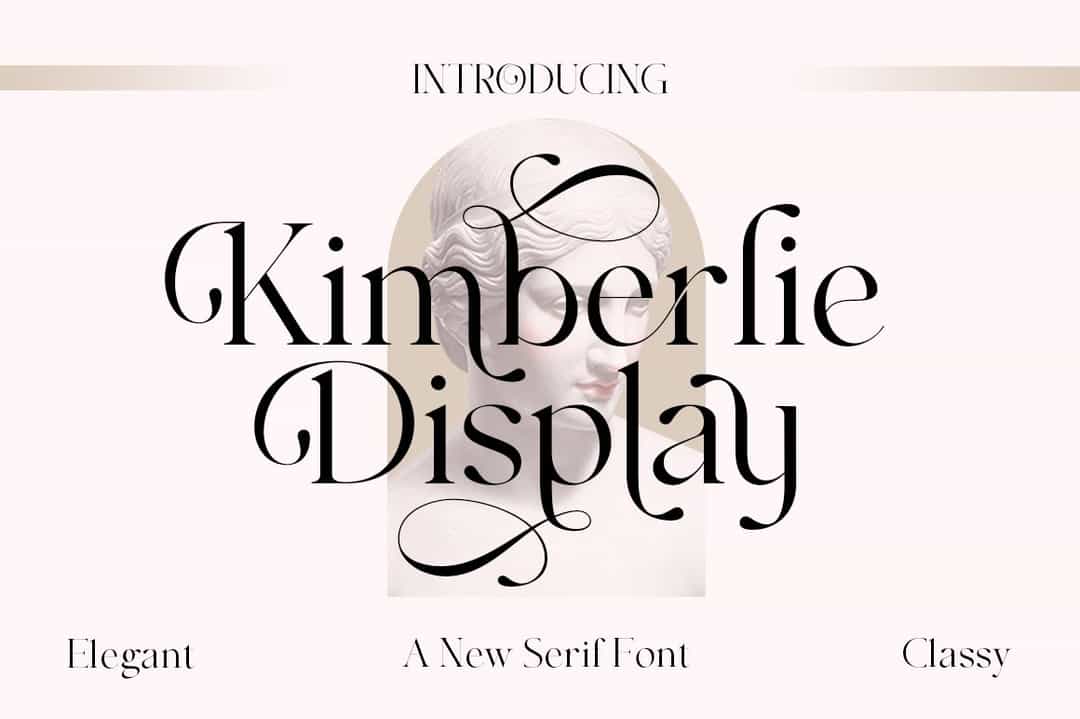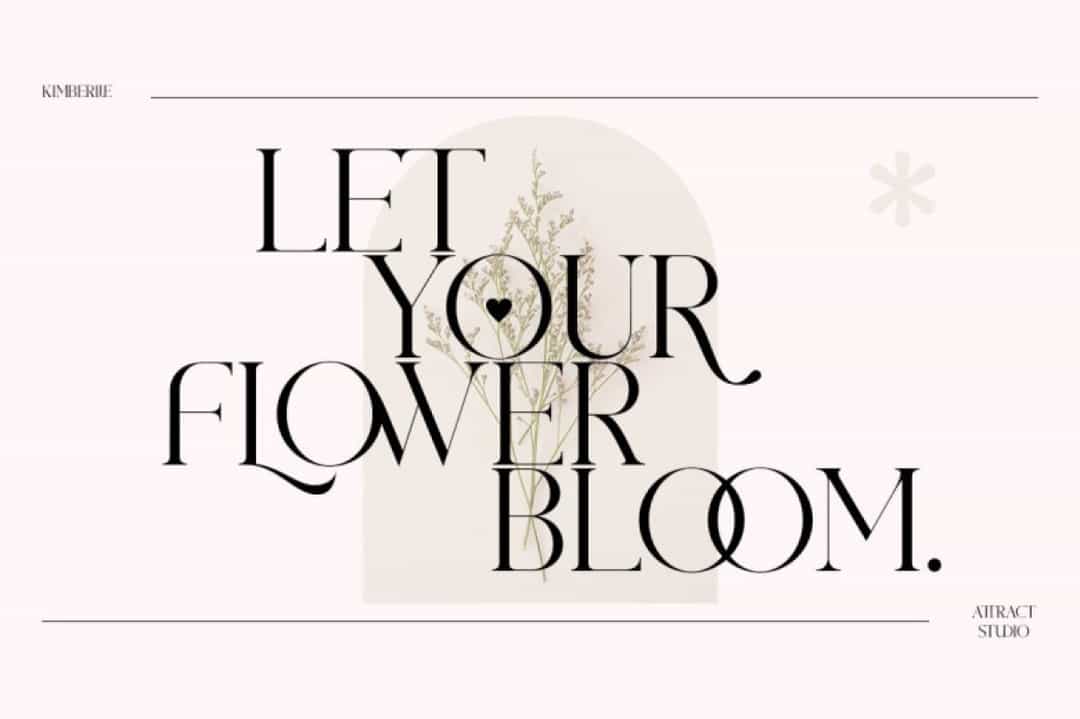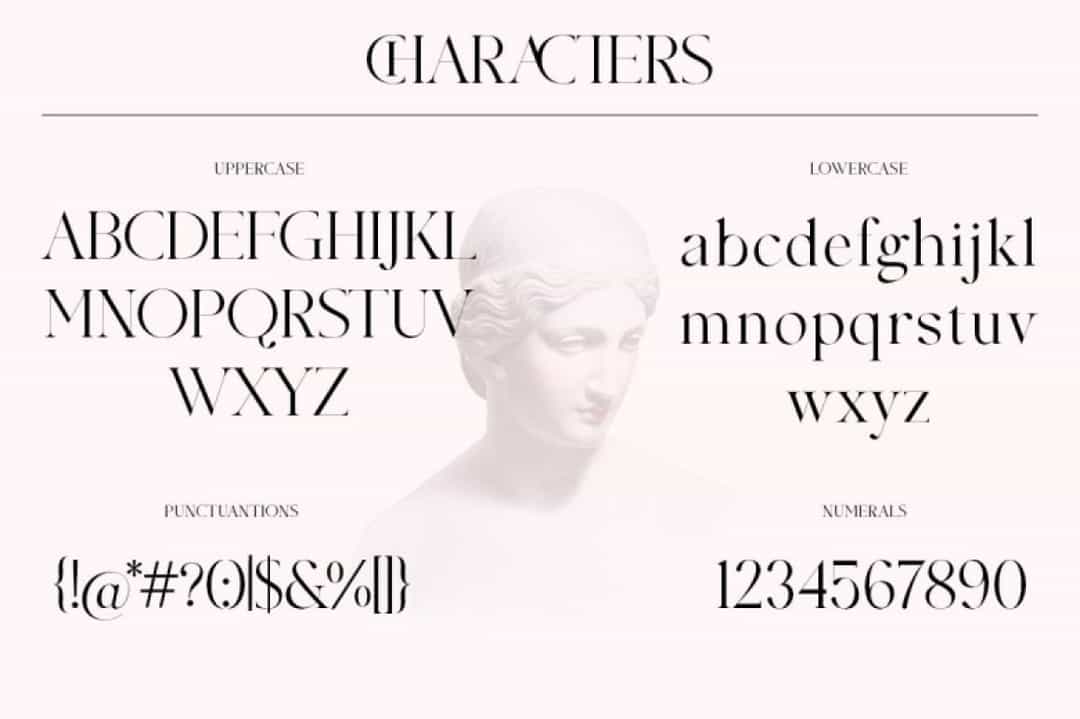
Kimberlie is an elegant display serif font that stands out with its combination of geometric shapes and organic curvy lines, creating an original font design. Inspired by classic serifs as well as modern serif fonts, its contrast between thin and thick strokes creates a visually striking and elegant appearance, creating a sensual and sophisticated didone serif complete with ligatures, alternates and swashes – it embodies your personal style!